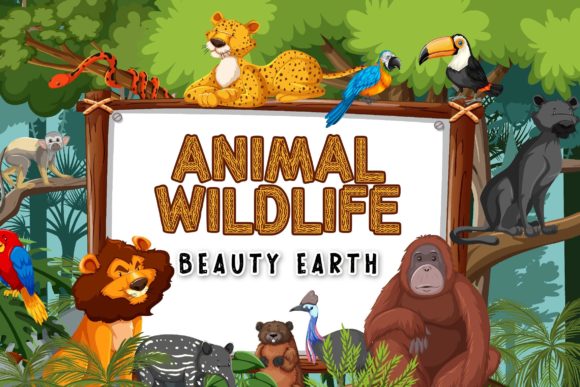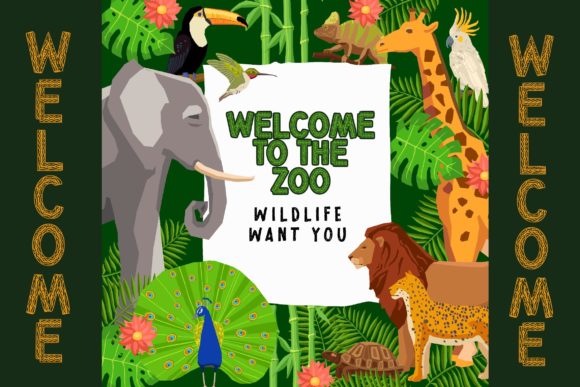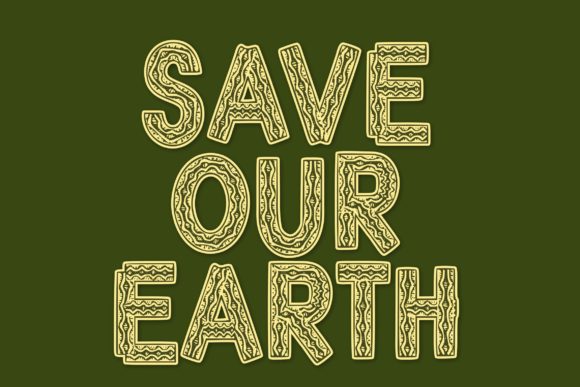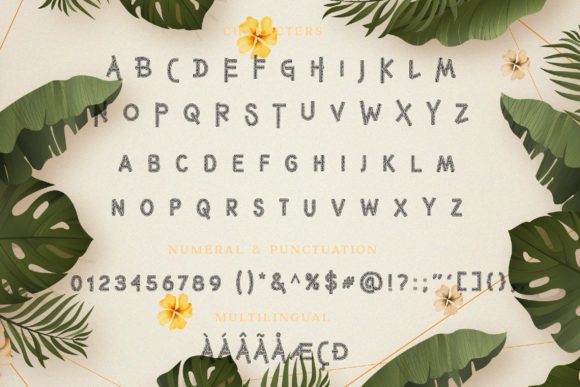
Introduction to Jungle Play Font
Have you ever stared at a blank canvas, unsure of where to begin your next creative project? The blank page can be intimidating, but sometimes all it takes is the right design resource to spark inspiration. For designers, finding that perfect font can be a game-changer, elevating a simple idea into a stunning visual masterpiece.
That’s where the Jungle Play Font comes in – a high-quality display font that’s sure to make your creations stand out. Whether you’re working on a free download or a paid project, this bold and cool-looking font has the potential to take your design to the next level.
With its transparent background and versatile design, the Jungle Play Font is an essential addition to any designer’s library. From logo design to creative projects, this font is sure to bring a touch of sophistication and style to your work.
Key Features of Jungle Play Font
- High-quality design resource ideal for creative projects, including children’s books, educational materials, and advertising campaigns.
- Unique and playful design, featuring vibrant colors and whimsical characters, perfect for adding a touch of excitement to your creative project.
- Transparent background, allowing for easy customization and layering in your design, making it an excellent choice for designers who value flexibility.
- Designed with a focus on readability, ensuring that the font remains clear and legible even at larger sizes, making it suitable for a wide range of applications.
- Perfect for designers seeking a fun and engaging design resource that can add a unique touch to their creative project, without breaking the bank.
Honest Review: Jungle Play Font
I recently stumbled upon the Jungle Play Font while searching for a design resource for a creative project. At first glance, I was impressed by its high quality and fun, playful feel. The font is available for free download, which is a definite bonus for designers on a budget.
One of the standout features of the Jungle Play Font is its versatility. It’s perfect for designing children’s books, educational materials, and even advertisements for outdoor gear or eco-friendly products. The font’s transparent background makes it easy to layer over images or use as a standalone design element.
- Perfect for children’s materials, educational resources, and outdoor-themed projects
- Some characters may be difficult to read at smaller font sizes
- Limited font weights and styles
Overall, I’m impressed by the Jungle Play Font. While it may not be perfect, it’s a valuable design resource for creative projects. With a little creativity, you can work around its limitations and create some truly amazing designs.
Tips for Getting the Most Out of Jungle Play Font
Here are a few tips for getting the most out of the Jungle Play Font:
Use it to create bold and playful headings and titles.
Combine it with other design elements to create visually appealing graphics and logos.
Experiment with different font sizes and colors to add depth and interest to your design.
The Jungle Play Font is perfect for:
Children’s book illustrations and design.
Adventure and travel-themed graphics and logos.
Fun and playful social media posts and ads.